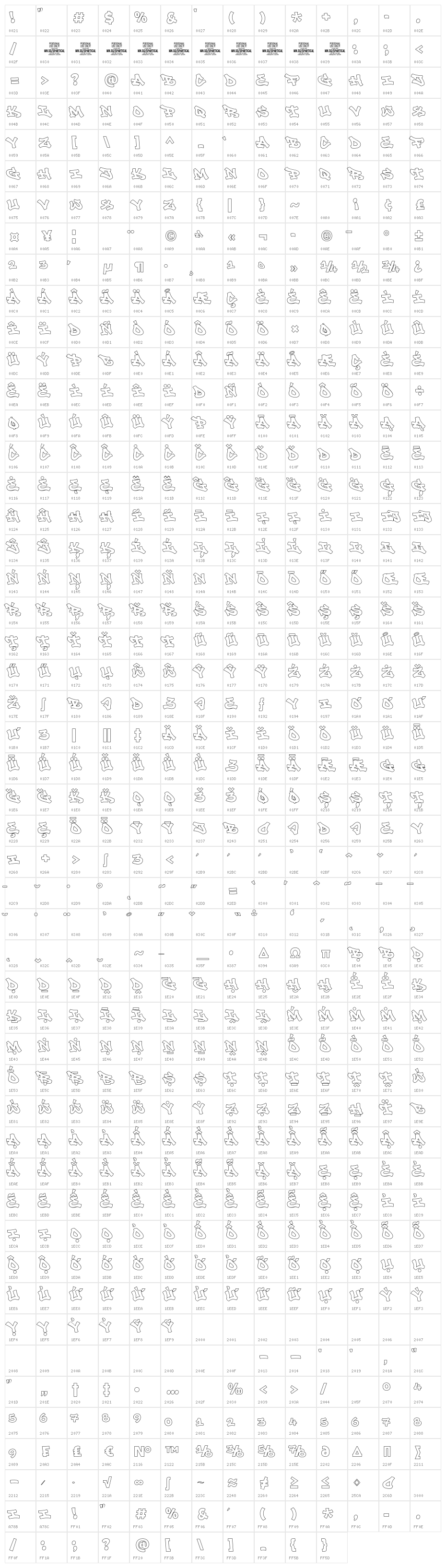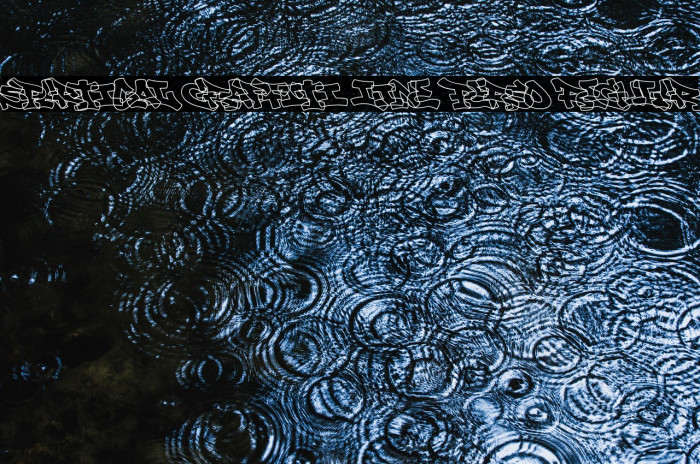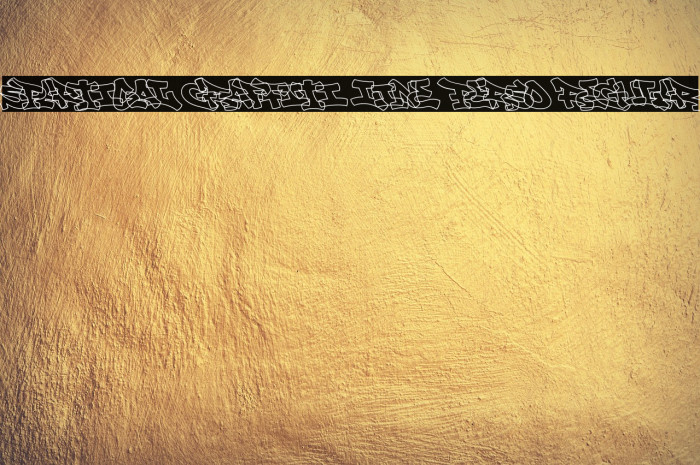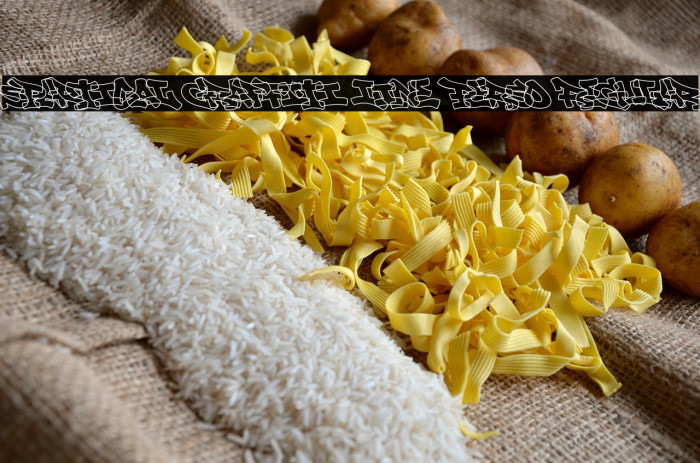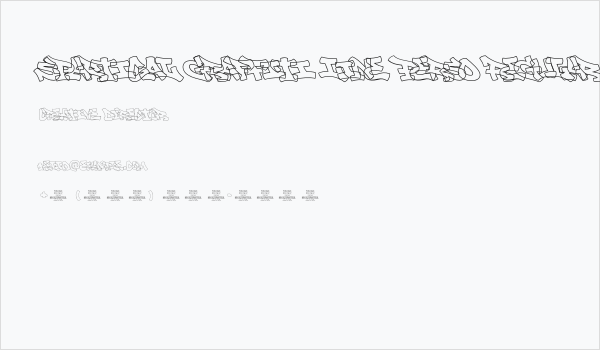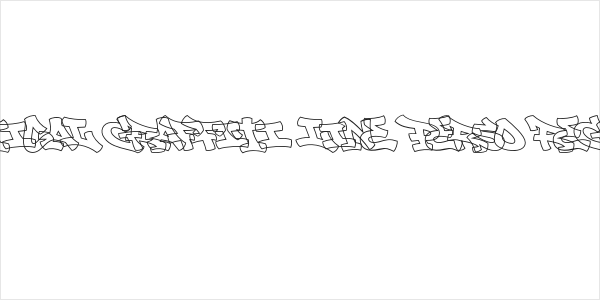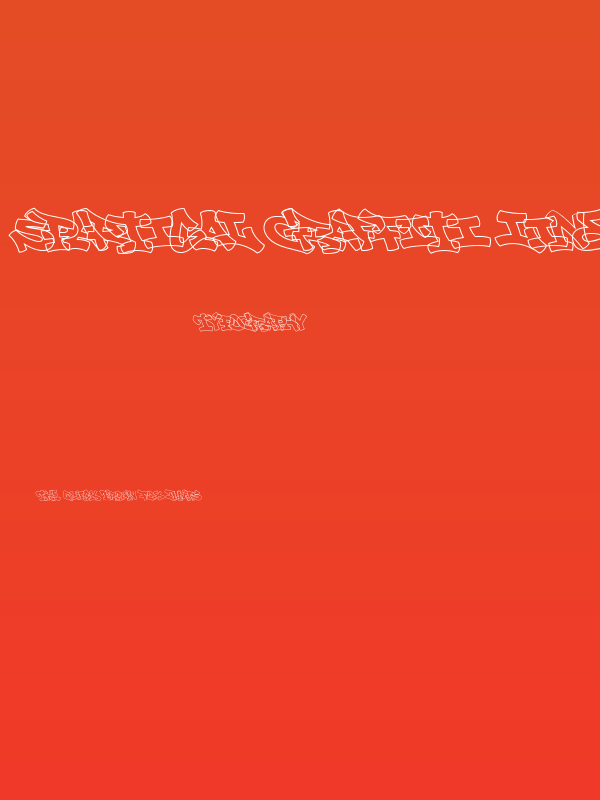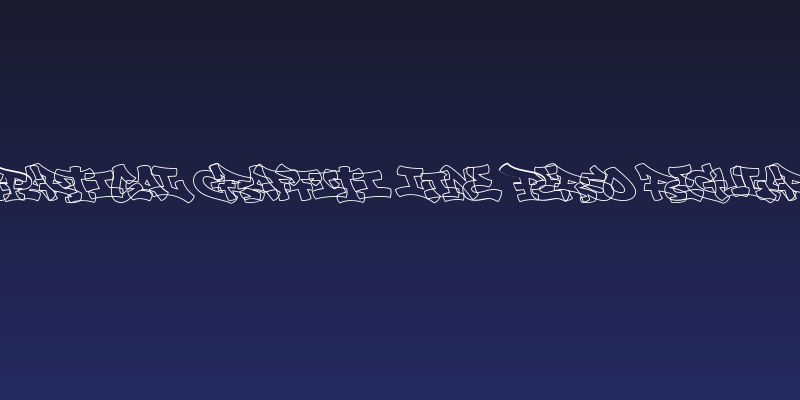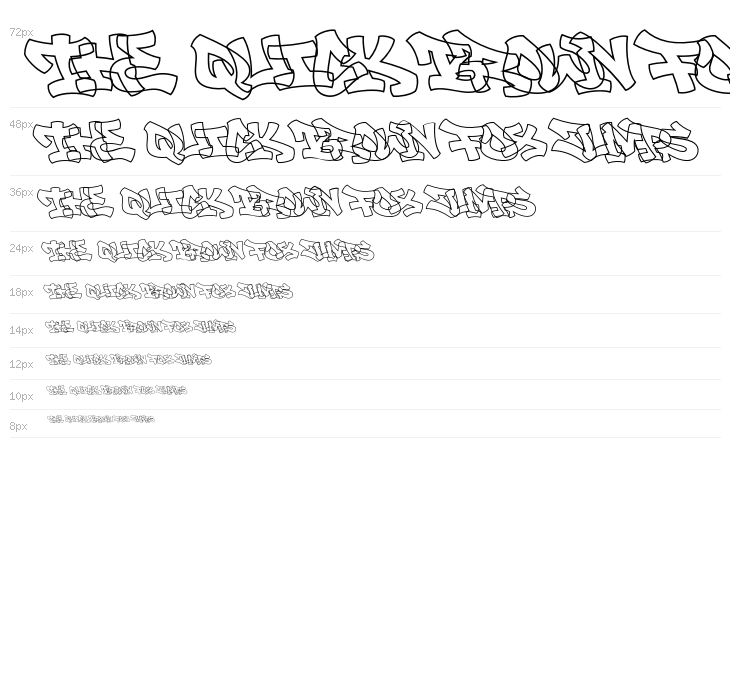
Spartical Graffiti Line PERSO Regular Font
Spartical Graffiti Line PERSO Regular Description
This font embodies the essence of urban street art with its bold, graffiti-inspired design. Each character is crafted with a dynamic, flowing style that mimics the look of spray-painted letters on a wall. The lines are thick and interconnected, creating a sense of movement and energy. The uppercase and lowercase letters maintain a consistent style, with exaggerated curves and sharp angles that give the font a rebellious and edgy feel. The numbers and special characters are equally expressive, ensuring a cohesive look across all text elements.
Overall StyleUrban, Edgy, Rebellious
Use CaseLogos, Posters, Headlines
Proposed ProjectsIdeal for projects that require a bold, urban aesthetic such as streetwear branding, music album covers, event posters, and graffiti art projects.